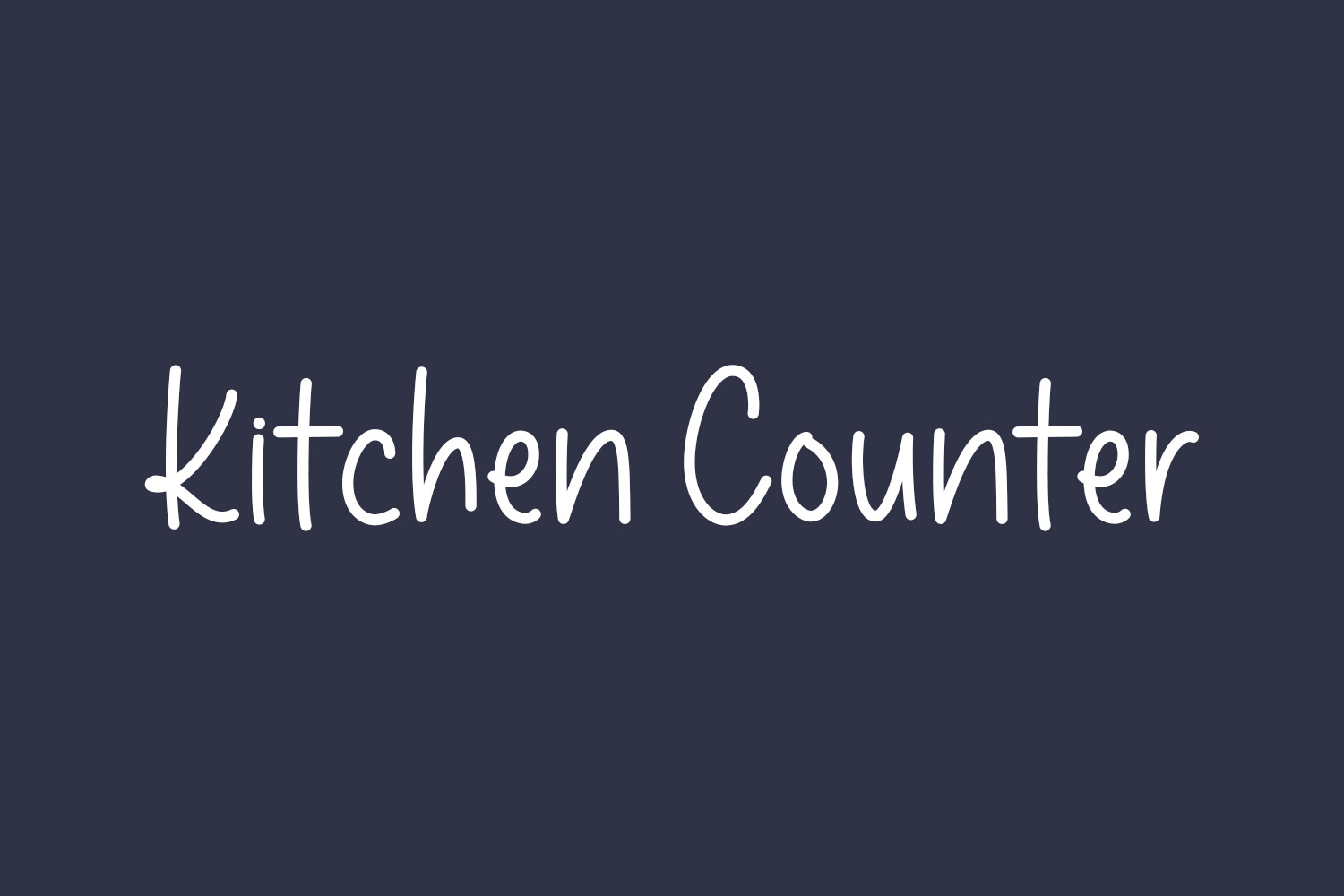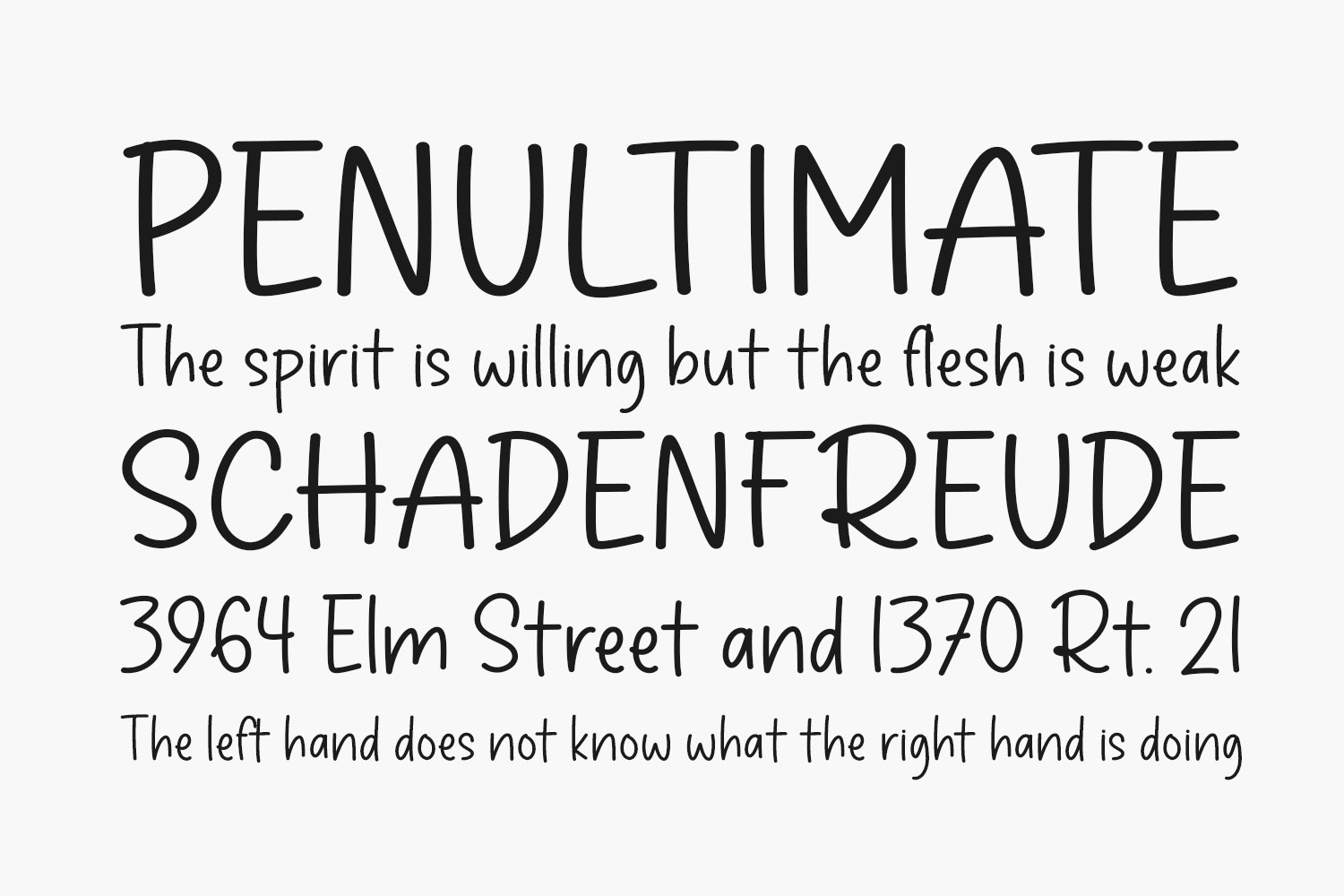
Introducing Kitchen Counter Free Font, a charming and sophisticated handwritten font that brings a touch of playfulness to your creative projects. This versatile typeface lends a cute and stylish appeal to invitations, thank you cards, quotes, greeting cards, logos, business cards, and any design in need of a personalized flair. Kitchen Counter Free Font is free for personal use only. Please purchase the full version for commercial use.
Designed by Nirmala Creative